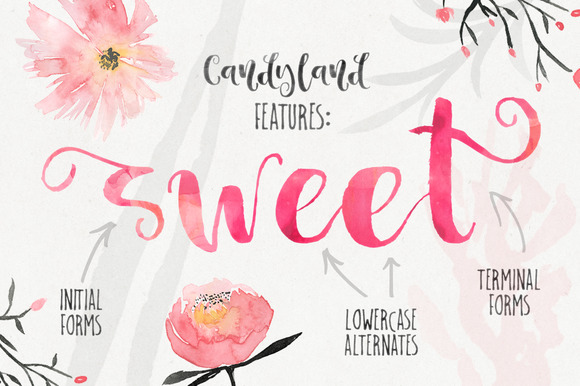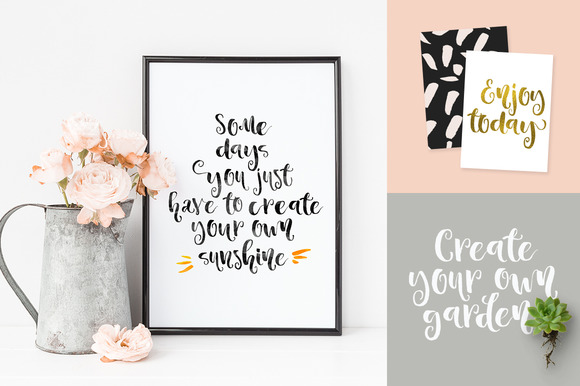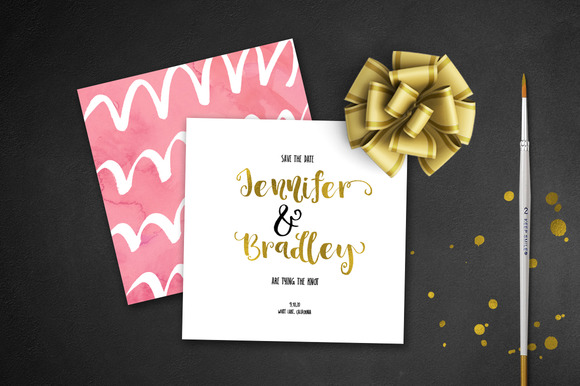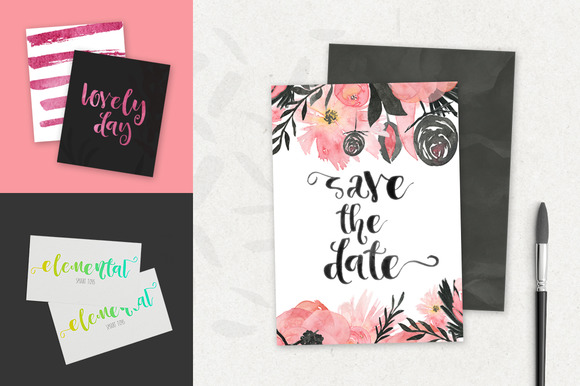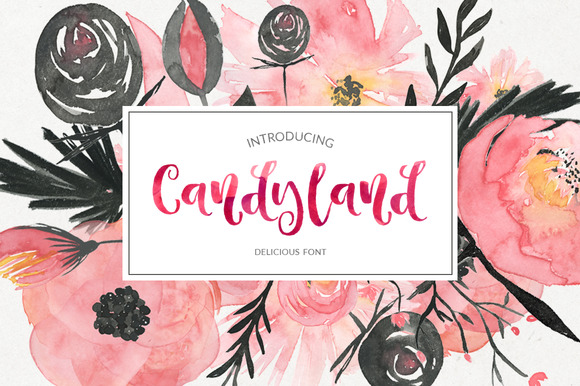
The Sweetest Font in Town: A Deep Dive into Candyland Font
I’ll never forget the time I was working on a wedding invitation project for a client who wanted something elegant, yet playful. I had spent hours browsing through font libraries, but nothing seemed quite right. That’s when I stumbled upon the Candyland font. It was love at first sight! ✨ The perfect blend of elegance and whimsy, Candyland has since become one of my go-to fonts for projects that require a touch of sweetness.
An Honest Review of Candyland Font
- ✨ Playful, yet elegant and feminine design
- ✅ Highly versatile for various projects, from wedding invites to birthday quotes and signs
- ✅ Beautifully crafted to add a touch of sophistication and whimsy to any design
While Candyland font is amazing, there are a few things to keep in mind: 🤔
- ⚠️ Some of the more intricate details might not display properly at very small font sizes
- ⚠️ Limited availability of certain characters, such as ligatures or diacritical marks
The Story Behind Candyland Font
Candyland font was inspired by the classic children’s board game, Candy Land. The font’s creator aimed to capture the game’s whimsical and fantastical spirit in a elegant, yet playful design. The result is a font that’s both sweet and sophisticated, perfect for a wide range of creative projects.
| Font Name | Candyland Font |
| Author | Favete Art |
Q: What type of projects is Candyland font best suited for?
A: Candyland font is highly versatile and can be used for various projects, such as wedding invitations, birthday quotes and signs, and more!
Q: Is Candyland font available in different weights or styles?
A: Currently, Candyland font is available in a single weight, but its elegant design makes it suitable for a wide range of projects.